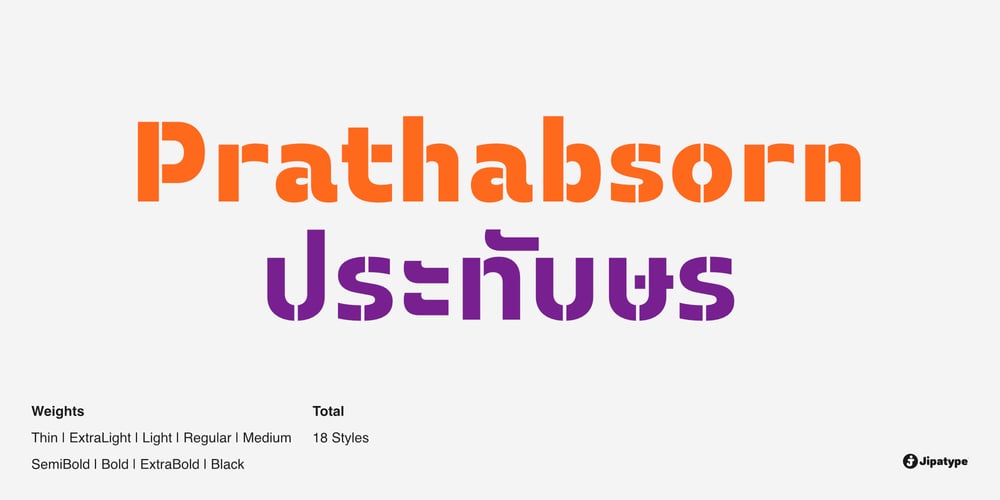
Prathabsorn
Prathabsorn font
Prathabsorn Font Family was designed by Anupap Jaichumnan and published by Jipatype. Prathabsorn contains 18 styles and family package options. Prathabsorn typeface is a semi-formal sans-serif font that incorporates stencil techniques. The stencil technique is a method of creating images using templates with various shapes cut out, over which paint is applied, resulting in an imprint on the material’s surface. This typeface consists of 18 styles, covering weights from the thin to the black, supporting both Latin 1 and Thai character sets. Prathabsorn typeface is particularly suitable for applications requiring stencil techniques, such as spray-painted text or other works intended to convey the characteristics of street art